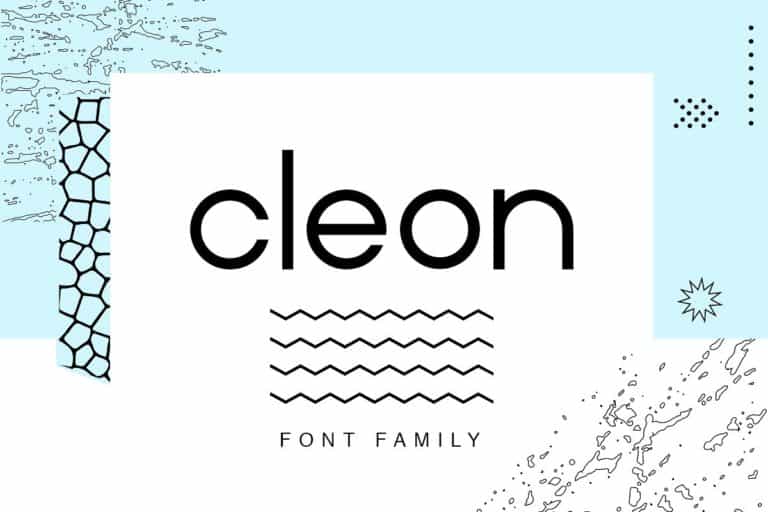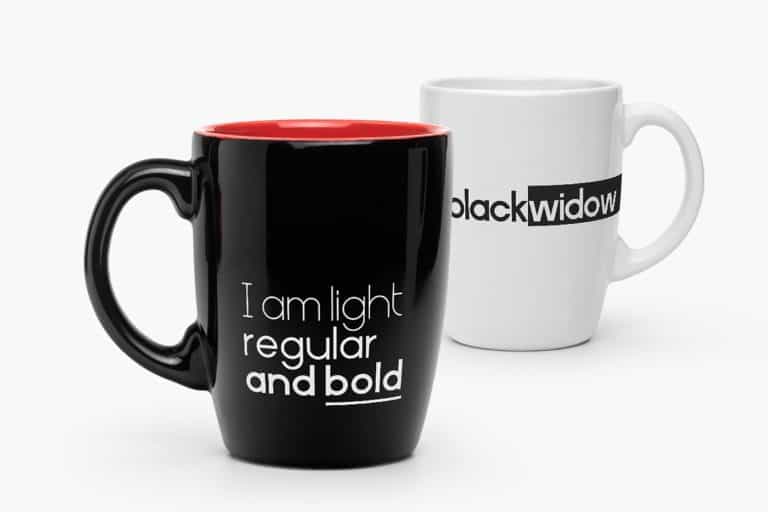
Introducing Cleon! It is created and published by Factory738. Cleon – a new beautiful sans serif typeface that applicable for any type of graphic design: Which is especially suitable for poster, t-shirt, and logo-likes. It contains the upper and lower case characters in the 3 fonts (regular, light and bold version).